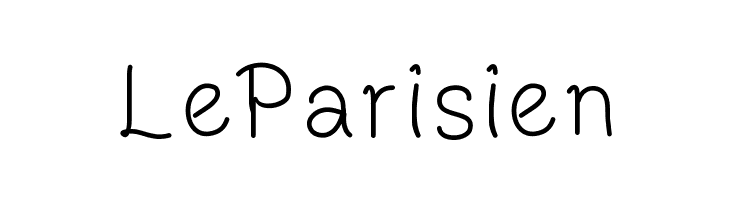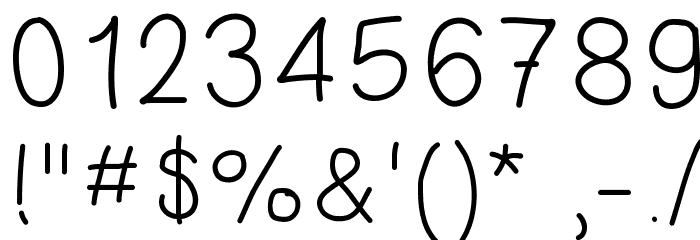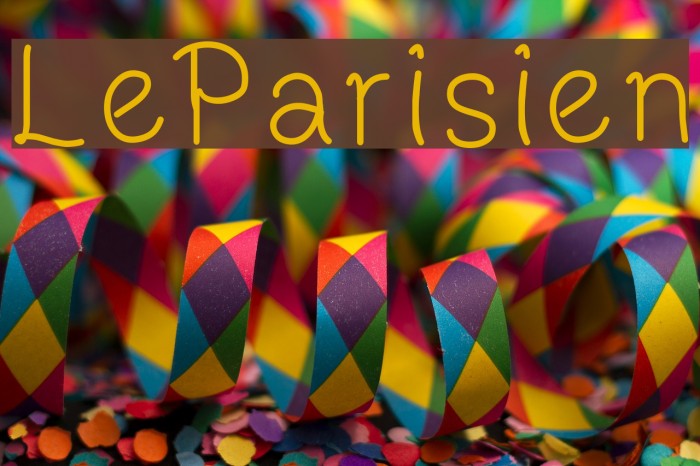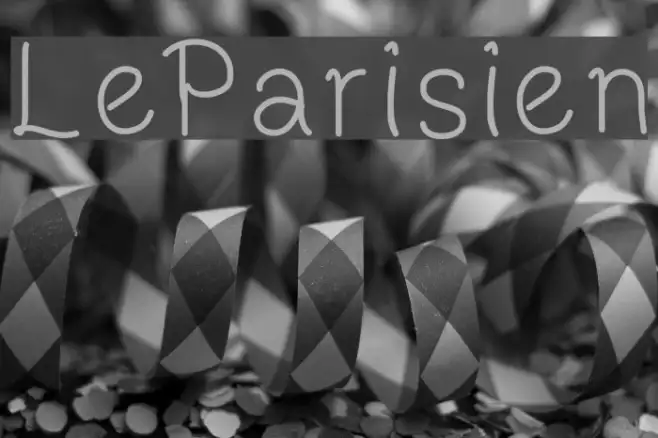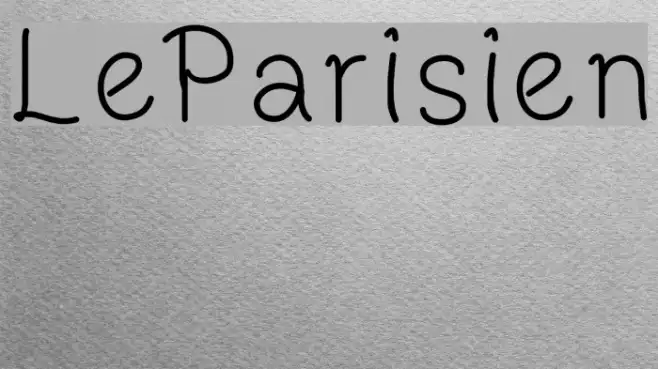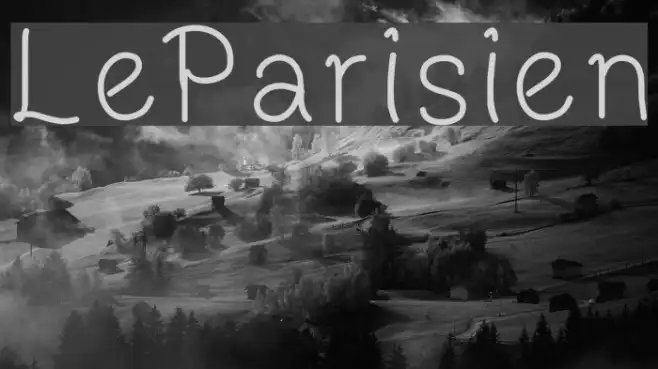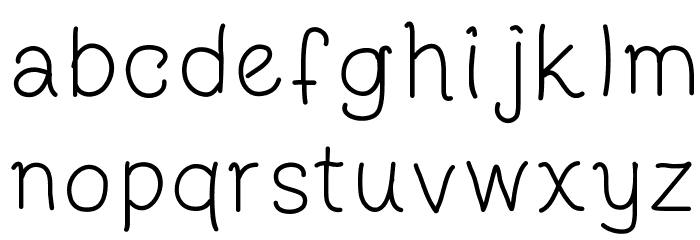
LeParisien Font
LeParisien Description
This font features a playful and casual handwritten style, characterized by its smooth, rounded edges and consistent stroke width. The letters are slightly slanted, giving a dynamic and informal feel. The uppercase letters maintain a uniform height, while the lowercase letters have a gentle, flowing baseline. Numbers and special characters are designed to match the whimsical nature of the alphabet, making them easily readable yet visually engaging. The overall appearance is friendly and approachable, suitable for projects that require a personal touch.
Overall StyleCasual
Use CaseHeadlines, Informal text, Personal projects
Proposed ProjectsIdeal for greeting cards, children's books, personal blogs, and informal branding.